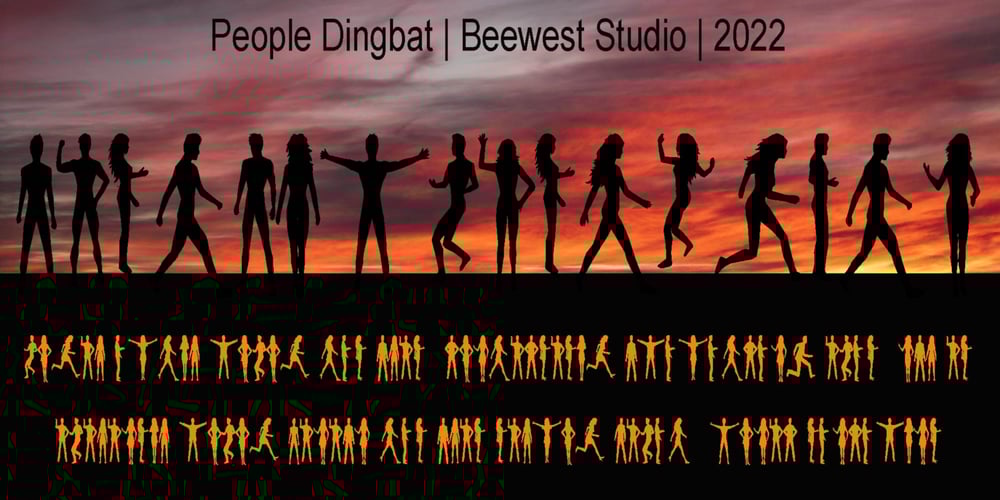
People Dingbat Font Family was designed by bsmbang wisudyantoro and published by Beewest Studio. People Dingbat contains 1 styles and family package options. People Dingbats Font is high quality dingbats font. Whether you’re using it for crafts, digital design, fashion design, presentations, book cover, magaizine or making greeting cards, this font has the potential to become your favorite go-to font, no matter the occasion!.